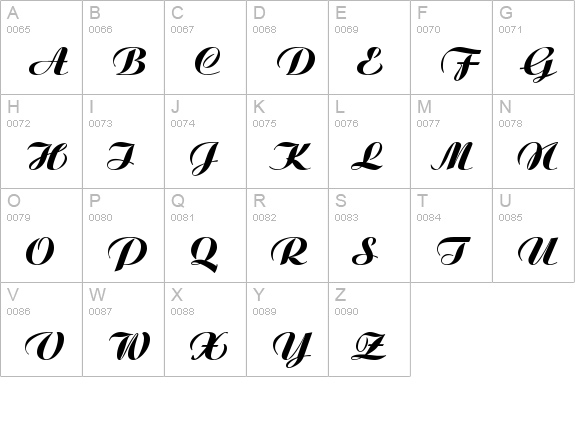
Ariston-Normal-Italic Font Details
Ariston-Normal-Italic is the standard, neutral, italic variant in the Ariston typeface family \xE2\x80\x94 well suited to general body text, paragraphs, and standard typographic work.
Introducing Ariston-Normal-Italic font, a classic and elegant typeface perfect for adding a touch of sophistication to your projects. With its sleek and stylish design, this font exudes a sense of modernity while maintaining a timeless appeal. The italicized version of Ariston-Normal font adds a dynamic and graceful flair to any text, making it ideal for headlines, quotes, and other attention-grabbing elements. What sets Ariston-Normal-Italic font apart is not only its versatile and eye-catching aesthetics, but also its accessibility. This font is available for free download at FontsMarket.com, allowing designers, creatives, and enthusiasts alike to easily incorporate it into their work without any financial constraints. Whether you're designing a website, creating branding materials, or crafting editorial layouts, Ariston-Normal-Italic font is a versatile and reliable choice that will elevate your designs to new heights. Download Ariston-Normal-Italic font today from FontsMarket.com and unlock the potential of this stunning typeface for your next project. Let your creativity shine with this freely available font that combines style, functionality, and accessibility in one elegant package.